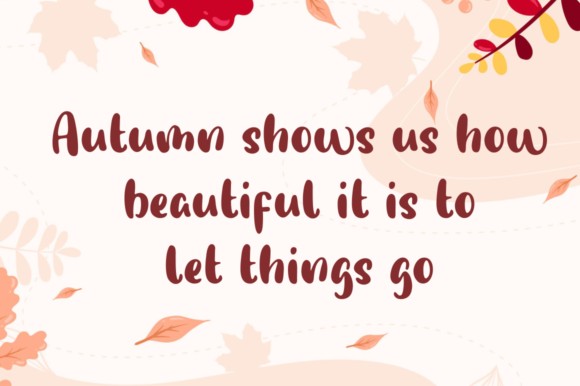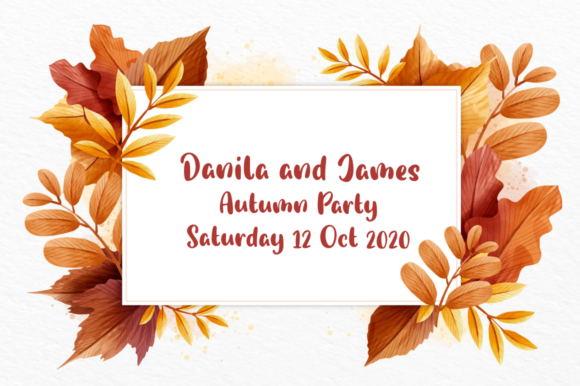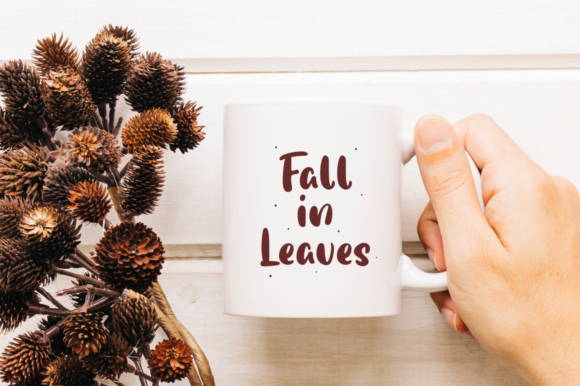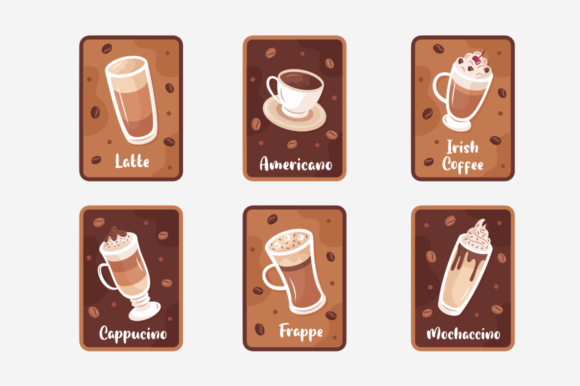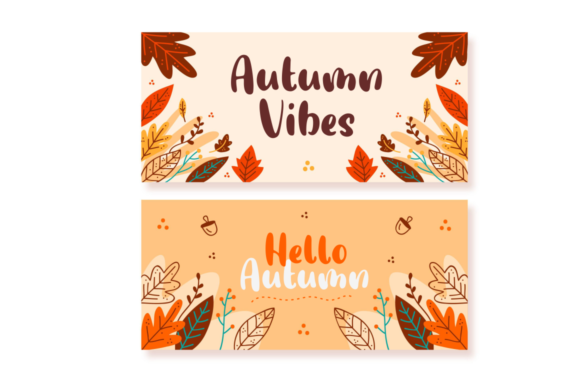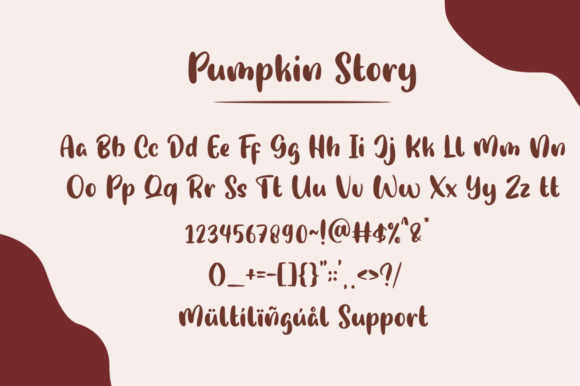
Pumpkin Story Font
About Pumpkin Story Font
Pumpkin Story is a cute and fun handwritten font. It is ideal for each of your October designs and Thanksgiving crafts!